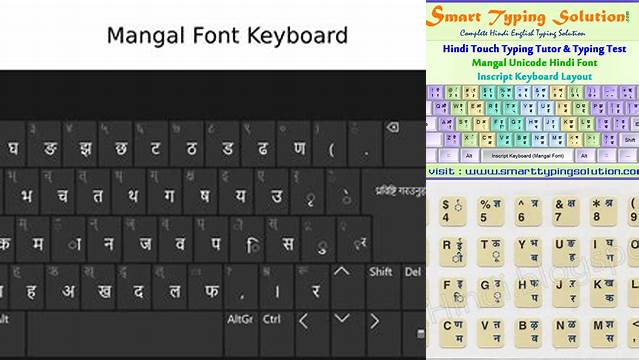
Mangal Font Keyboard Chart: Free Download Guide
1. Understanding Mangal Font: An Overview
Mangal font, a Unicode-based font, is the standard for Hindi typing in many government and official documents in India. Before we dive into how to download a Mangal font keyboard chart for free, it’s crucial to understand its importance. Unlike legacy fonts that required specific encoding, Mangal ensures compatibility across different systems and platforms. This means a document typed in Mangal font will look the same regardless of where it's opened. Its adoption by various organizations highlights its reliability and widespread usability. Knowing the basics helps appreciate why having a Mangal font keyboard chart is essential for efficient typing.
2. Why Use Mangal Font?
Why should you even bother with Mangal font, you ask? Well, for starters, if you're dealing with Hindi documents, it's often a requirement. Many government applications, official forms, and academic papers need to be submitted in Mangal. Plus, it's the Unicode standard, so you're future-proofing your documents. Using Mangal font ensures your content is accessible and readable across different devices and operating systems without any compatibility issues. This is a huge advantage compared to older, non-Unicode fonts. If you're serious about Hindi typing, getting a Mangal font keyboard chart is a game-changer.
3. Benefits of Having a Mangal Font Keyboard Chart
Okay, let's talk about the real MVP: the keyboard chart. A Mangal font keyboard chart is basically your cheat sheet to typing in Hindi. It shows you which key corresponds to which Hindi character. Think of it as a map guiding you through the layout. With a chart, you don't have to memorize the entire layout. This significantly speeds up your typing and reduces errors. Imagine trying to navigate a new city without a map – frustrating, right? That’s what typing in Mangal without a chart feels like. So, downloading a free Mangal font keyboard chart is like getting the keys to the kingdom of Hindi typing!
5. Different Types of Mangal Font Keyboard Layouts
You might be surprised to learn that there are different layouts for Mangal font. The most common one is the Inscript layout, which is the standard layout used in India. But there are others, like the Remington Gail layout, which mimics the layout of older typewriter keyboards. Understanding these layouts is key to finding the right Mangal font keyboard chart for your needs. If you're used to typing on a typewriter, the Remington Gail layout might be more comfortable. However, for most users, the Inscript layout is the way to go. Choosing the right layout and getting a corresponding keyboard chart will make a world of difference in your typing speed and accuracy.
9. Tips for Using the Mangal Font Keyboard Chart Effectively
Alright, you’ve got your Mangal font keyboard chart – now how do you use it like a pro? First, keep the chart visible while you type. Whether it's printed out or on your screen, having it in sight is essential. Start by practicing simple words and phrases. Focus on accuracy over speed initially. As you get more comfortable, your speed will naturally increase. Try typing out a paragraph or two each day to build muscle memory. Consistent practice with your Mangal font keyboard chart is the key to mastering Hindi typing.
10. Common Mistakes to Avoid While Using Mangal Font
We all make mistakes, but knowing the common ones can help you avoid them. One common mistake is mixing up similar-looking characters. The Mangal font keyboard chart can help prevent this. Another mistake is not switching to the Hindi input method before typing. Remember to check the language icon in your taskbar. Also, don't try to memorize the entire layout at once. Take it one character at a time. Being aware of these pitfalls and using your Mangal font keyboard chart as a guide will minimize errors.
11. Practicing Typing with Mangal Font: Exercises and Resources
Practice makes perfect, right? So, let’s talk exercises. Start with typing basic Hindi vowels and consonants. Then move on to common words and phrases. There are also plenty of online typing tutors specifically designed for Mangal font. These resources often provide exercises, tests, and feedback to help you improve. Dedicate some time each day to practicing with your Mangal font keyboard chart, and you'll see your skills soar. Consistent effort, combined with effective resources, is the recipe for success in Mangal font typing.
12. Online Typing Tutors for Mangal Font
Speaking of online resources, let’s dive deeper into typing tutors. There are some fantastic websites and apps that offer interactive lessons, typing tests, and progress tracking. Many of these are specifically tailored for Mangal font and the Inscript layout. They provide a structured approach to learning, making the process more engaging and effective. Using these tools alongside your Mangal font keyboard chart can significantly boost your learning curve. These online tutors often offer personalized feedback, which is invaluable for improving your accuracy and speed.
13. Understanding Unicode and Its Importance for Mangal Font
We touched on Unicode earlier, but let's really break it down. Unicode is like a universal language for computers. It assigns a unique code to every character, symbol, and glyph, ensuring that text displays correctly across different systems and software. Mangal font is Unicode-based, which means it’s compatible with a wide range of platforms. This is crucial for document sharing and long-term accessibility. Understanding Unicode helps you appreciate why Mangal font is the standard and why having a Mangal font keyboard chart for it is so important. Unicode ensures that your Hindi documents will be readable for years to come, regardless of technological advancements.
14. Mangal Font vs. Other Hindi Fonts: A Comparison
You might be wondering, “Are there other Hindi fonts I could use?” Sure, there are! But Mangal has several advantages. As the Unicode standard, it offers better compatibility and avoids the encoding issues that plague older fonts. Other fonts might look different on different systems, but Mangal ensures consistency. While some people might prefer the aesthetics of other fonts, Mangal's widespread use and reliability make it the top choice for professional and official documents. Plus, finding a Mangal font keyboard chart is much easier than for other, less common fonts.
15. Using Mangal Font in Microsoft Word and Other Applications
Okay, let’s talk practical application. How do you actually use Mangal font in programs like Microsoft Word? It’s pretty straightforward. After installing the font and setting up your keyboard, simply select Mangal font from the font dropdown menu in Word. Then, switch to the Hindi input method, and you’re good to go! The same process applies to other applications like Google Docs and OpenOffice. Using your Mangal font keyboard chart as a guide, you can now create Hindi documents with ease. Most modern applications support Unicode fonts, making Mangal a seamless choice.
16. Troubleshooting Common Issues with Mangal Font
Sometimes things don’t go as planned, and that’s okay. If you’re having trouble typing in Mangal font, here are a few things to check. First, make sure you've selected the Hindi input method. Second, verify that Mangal font is selected in your application. If characters are displaying incorrectly, ensure the document encoding is set to Unicode (UTF-8). And of course, keep your Mangal font keyboard chart handy! Troubleshooting these issues is often simple, but systematically checking each step can save you time and frustration.
17. Advanced Typing Techniques with Mangal Font
Once you’ve mastered the basics, you can explore some advanced typing techniques. This includes learning keyboard shortcuts, using macros for frequently used phrases, and practicing touch typing. Touch typing involves typing without looking at the keyboard, which can significantly increase your speed and accuracy. While it takes time and practice, it’s a worthwhile investment. Your Mangal font keyboard chart will still be a valuable resource, but eventually, you’ll be able to type almost instinctively. Advanced techniques can transform you from a beginner to a proficient Mangal font typist.
18. Creating Professional Documents with Mangal Font
Using Mangal font allows you to create professional-looking Hindi documents. Whether it’s a report, a letter, or a presentation, Mangal font ensures your text is legible and compliant with standards. Proper formatting, clear language, and consistent use of Mangal font can elevate your documents. Remember, the goal is to communicate effectively, and Mangal font helps you do just that. Your Mangal font keyboard chart is your tool for crafting these polished documents.
19. The Future of Hindi Typing and Mangal Font
What does the future hold for Hindi typing? Well, with the increasing digitization of India, the demand for Hindi content is only going to grow. Mangal font, as the standard, will continue to play a crucial role. We might see advancements in typing tools, voice recognition software, and keyboard layouts, but the core principle of Unicode compatibility will remain. Staying updated with these developments can help you leverage the latest technologies and continue to improve your Mangal font typing skills. The Mangal font keyboard chart you download for free today will likely remain relevant for years to come.
20. Mangal Font for Government Exams and Official Work
If you're planning to take any government exams or work in an official capacity in India, knowing Mangal font is almost a must. Many exams require typing tests in Mangal, and most government departments use it for official correspondence. Mastering Mangal font can open up career opportunities and make your work life much easier. Your Mangal font keyboard chart is your ally in acing those typing tests and excelling in your job. Investing time in learning Mangal font is an investment in your future career prospects.
21. Keyboard Layout Options for Mangal Font
As we discussed earlier, Inscript is the most common layout, but let's explore other options a bit more. Remington Gail, Kruti Dev, and others exist, each with its own quirks. Inscript is designed for logical key placements, while Remington Gail mimics older typewriter layouts. Understanding these differences helps you choose the layout that best suits your needs and learning style. Each layout will have a slightly different Mangal font keyboard chart, so make sure you're using the correct one!
22. Printable Mangal Font Keyboard Charts: Best Practices
If you’re going to print your Mangal font keyboard chart, let’s talk best practices. Use a clear, high-resolution image or PDF to ensure the characters are legible. Print on a standard size paper (A4 or Letter) and consider laminating it for durability. Keep it near your keyboard for easy reference. A well-printed Mangal font keyboard chart is a valuable tool for learning and practice.
23. Mobile Apps for Learning Mangal Font Typing
Want to practice on the go? There are several mobile apps available that can help you learn Mangal font typing. These apps often offer interactive lessons, games, and typing tests. They're a convenient way to squeeze in some practice during your commute or breaks. Some apps even include a Mangal font keyboard chart right within the app, making it even easier to learn. Mobile apps provide a flexible and engaging way to improve your skills.
24. Customizing Your Keyboard for Mangal Font
For the tech-savvy among you, customizing your keyboard for Mangal font might be an appealing option. This involves remapping keys to match the Inscript layout more closely to your preferences. While it requires some technical knowledge, it can potentially improve your typing speed and comfort. However, it’s essential to have a solid understanding of the layout first and use your Mangal font keyboard chart as a reference throughout the customization process.
25. Ergonomics and Typing in Mangal Font
Let's talk ergonomics. Typing for long periods can strain your hands and wrists, so it’s crucial to maintain good posture, use a comfortable keyboard, and take breaks regularly. Place your Mangal font keyboard chart in a position that doesn’t require you to strain your neck. Proper ergonomics not only improve your comfort but also prevent injuries, allowing you to type in Mangal font efficiently for years to come.
26. Mangal Font and Hindi Language Resources
Learning Mangal font is just one piece of the puzzle. To truly master Hindi typing, it's helpful to improve your overall Hindi language skills. Explore online dictionaries, grammar guides, and literature. This broader understanding will enhance your ability to compose and type meaningful content in Hindi. Your Mangal font keyboard chart enables you to type, but your language skills give your words meaning.
27. Speed Typing Techniques in Mangal Font
Ready to boost your speed? Focus on touch typing, minimize unnecessary movements, and practice regularly. Use online typing tests to track your progress and identify areas for improvement. Consistent effort and targeted practice can help you significantly increase your words per minute (WPM) in Mangal font. Your Mangal font keyboard chart is the foundation, but speed typing techniques are the next level.
28. Mangal Font and the Evolution of Hindi Computing
Mangal font's adoption marked a significant step in the evolution of Hindi computing. It provided a standardized and reliable way to type in Hindi across different platforms. This has facilitated the growth of Hindi content online and in official documents. Understanding this historical context helps appreciate the importance of Mangal font and the role it plays in preserving and promoting the Hindi language in the digital age. The availability of a Mangal font keyboard chart has been crucial in this evolution.
29. Accessibility Considerations for Mangal Font Documents
When creating documents in Mangal font, it's important to consider accessibility. Ensure your documents are properly formatted, use clear headings, and provide alternative text for images. This makes your content accessible to individuals with disabilities. Accessibility is a crucial aspect of inclusive communication, and Mangal font, as a Unicode standard, supports these efforts. Always aim to create documents that are readable and usable by everyone.
30. Troubleshooting Character Display Issues in Mangal Font
Sometimes, despite your best efforts, characters might not display correctly in Mangal font. This can be due to font corruption, incorrect encoding settings, or software glitches. Try reinstalling the font, verifying the document encoding (UTF-8 is recommended), and restarting your computer. If the issue persists, consult online forums or technical support resources. A systematic approach to troubleshooting will usually resolve most character display problems. And remember, your Mangal font keyboard chart is only useful if the characters display correctly!